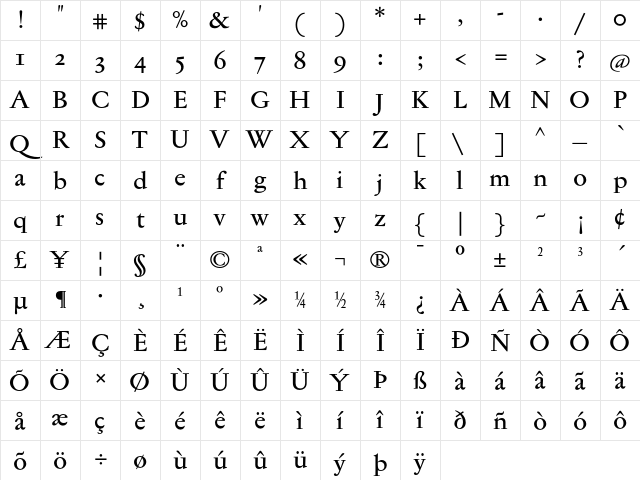
Complete Jannon Text Med OSF Regular glyph index. Displaying only characters natively supported by Jannon Text Med OSF Regular font.
Jannon Text Med OSF is a composed and adaptable typeface that performs quietly and consistently across a wide range of design contexts.